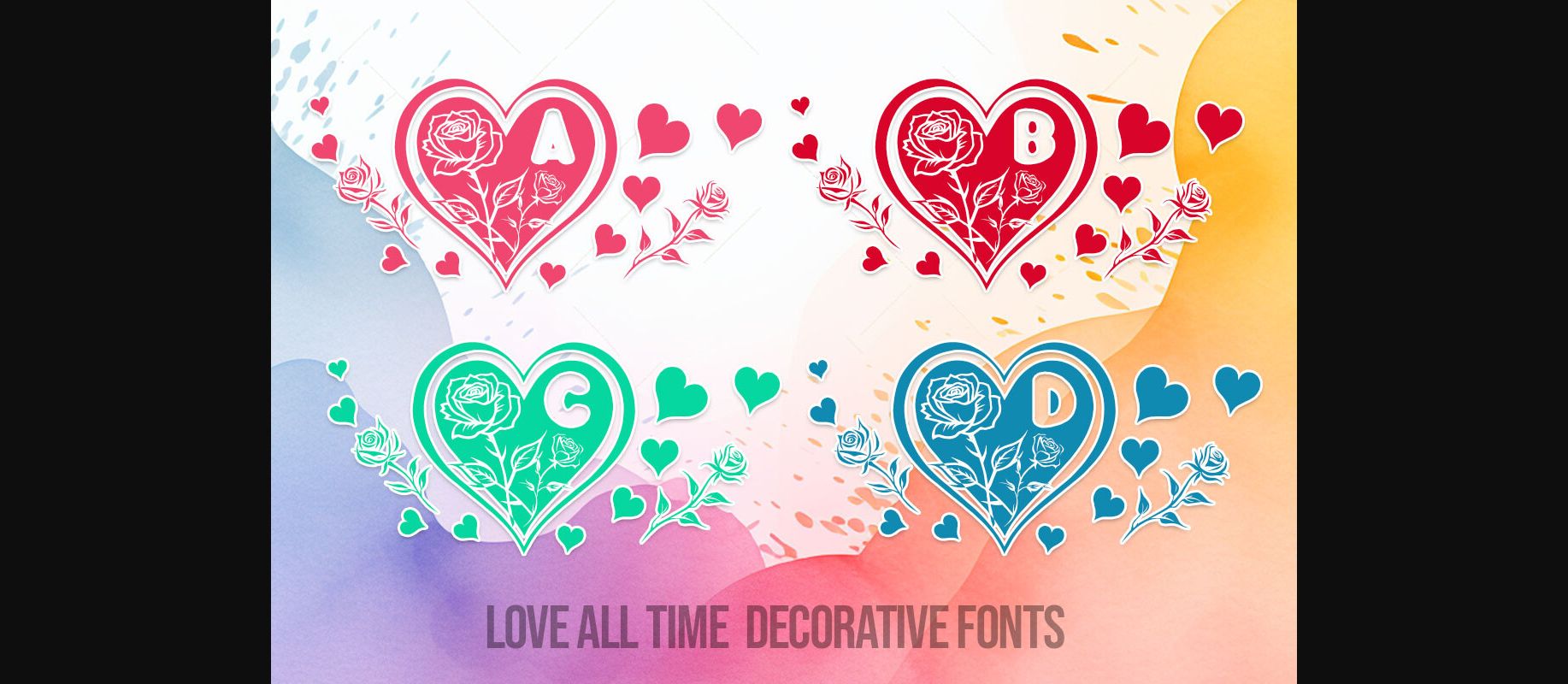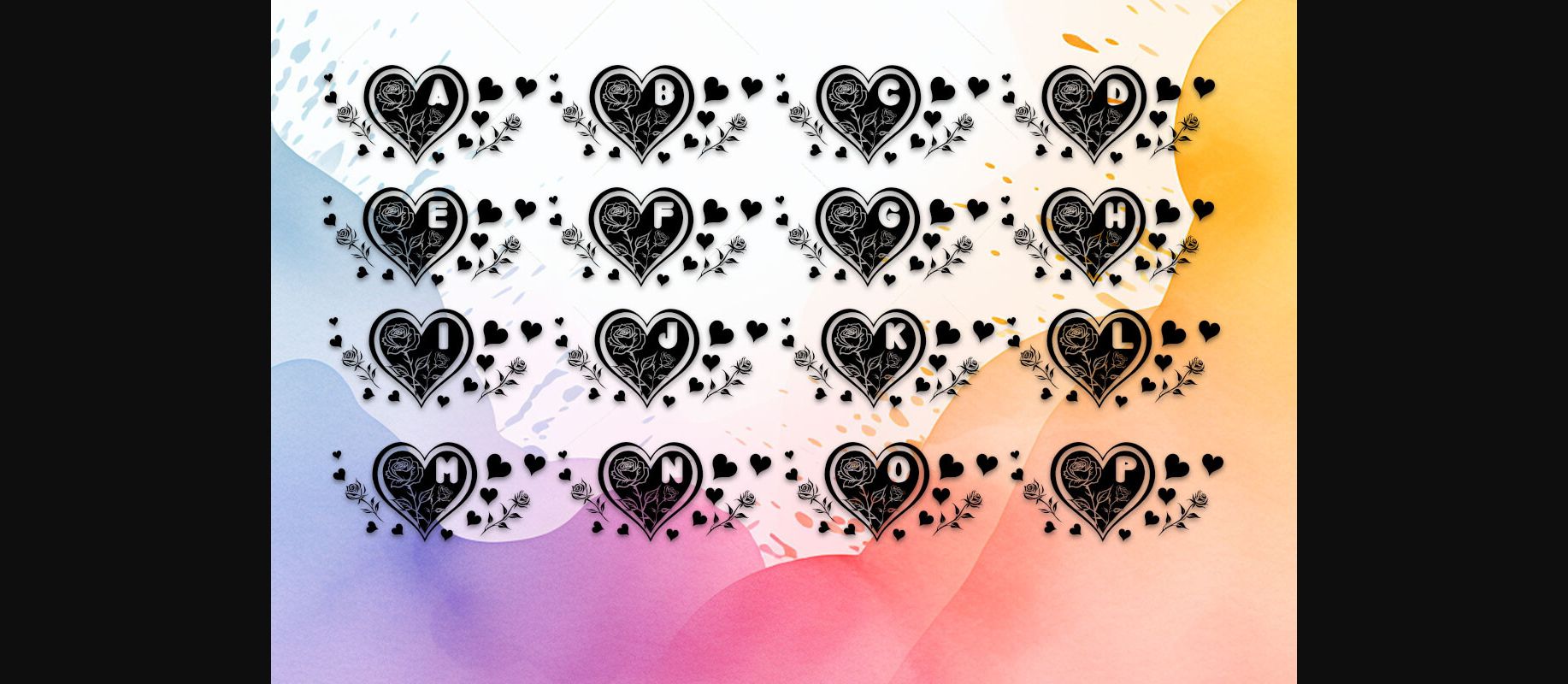
About Love All Time Font
Introducing “Love All Time Fonts,” a delightful collection featuring 36 characters, including 26 uppercase letters and numbers 0-9. This font set embodies a beautiful rose encompassing the emblem of love – the heart. Perfect for infusing a romantic touch into your designs